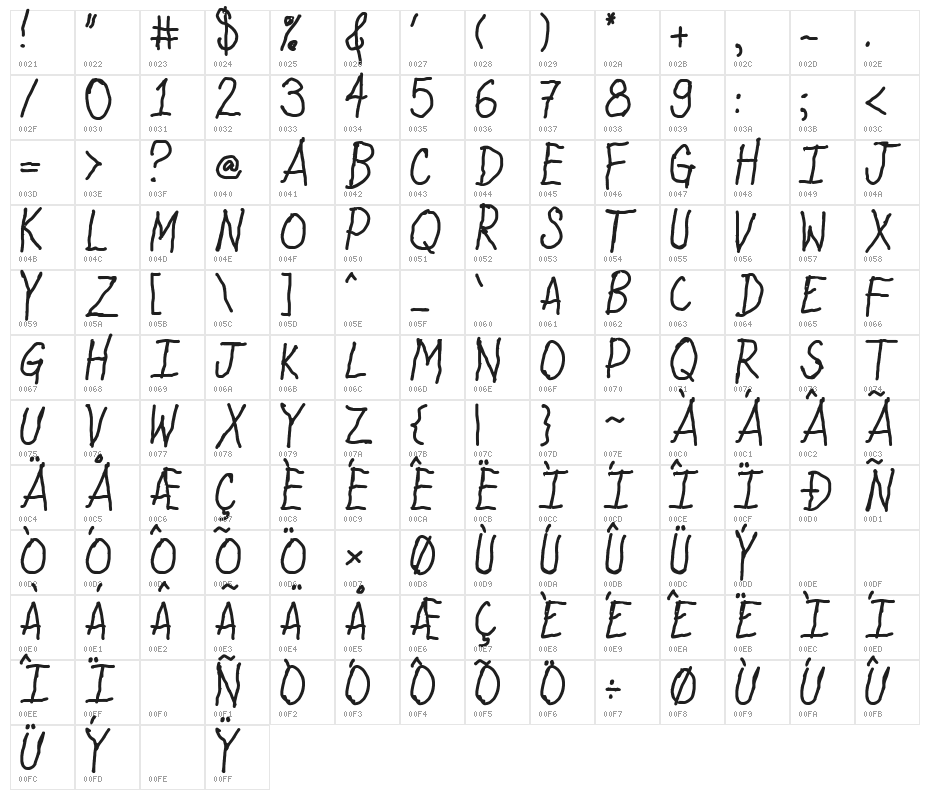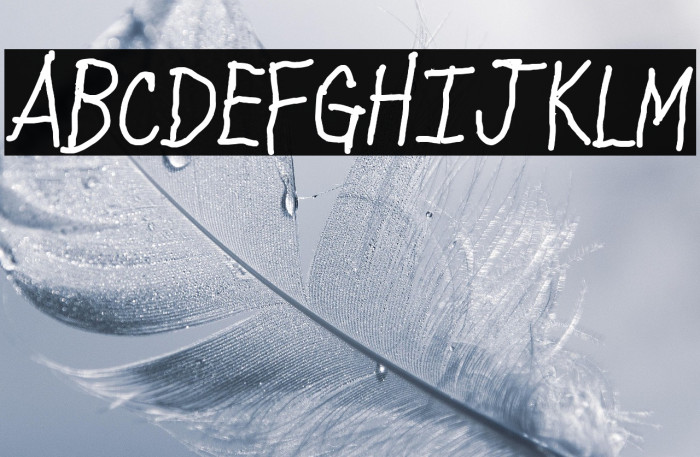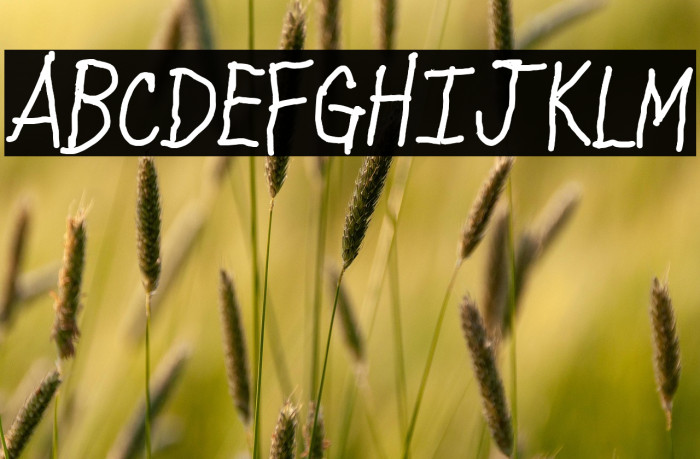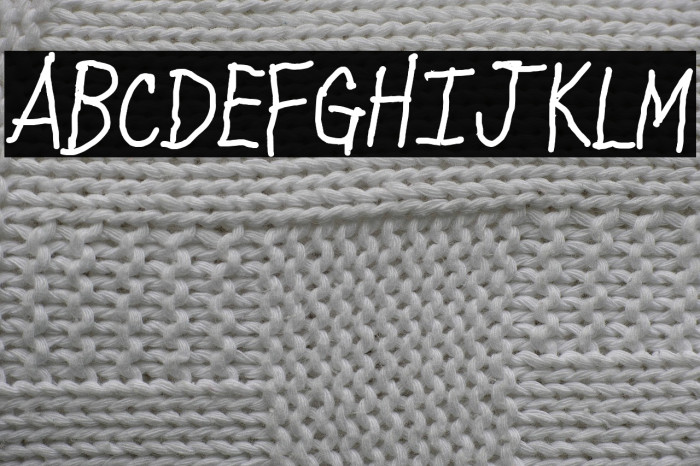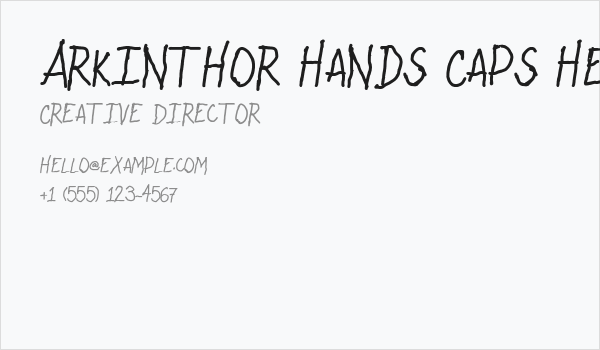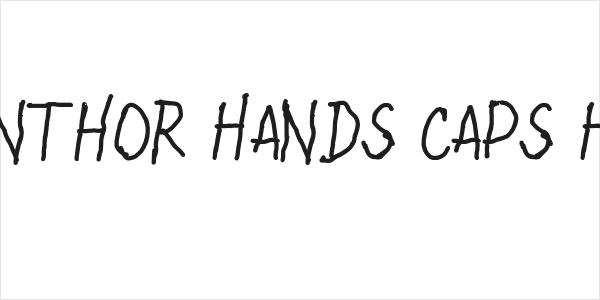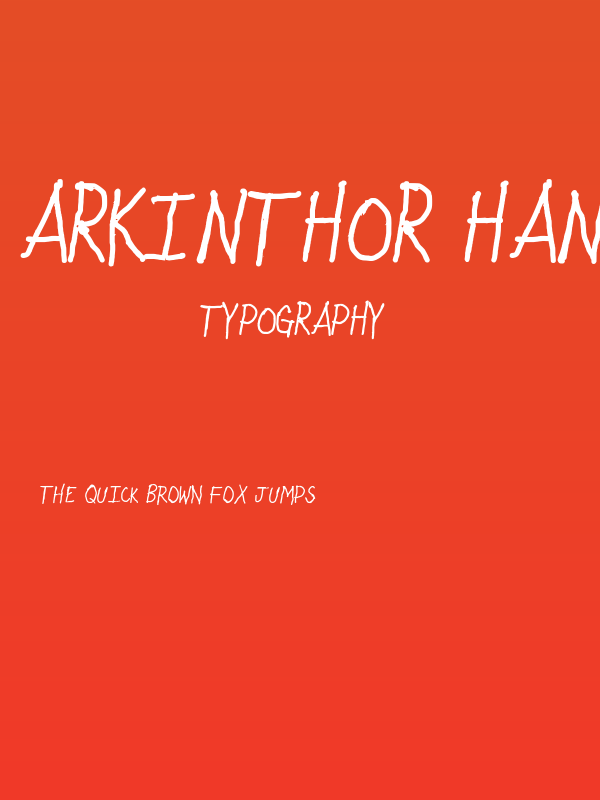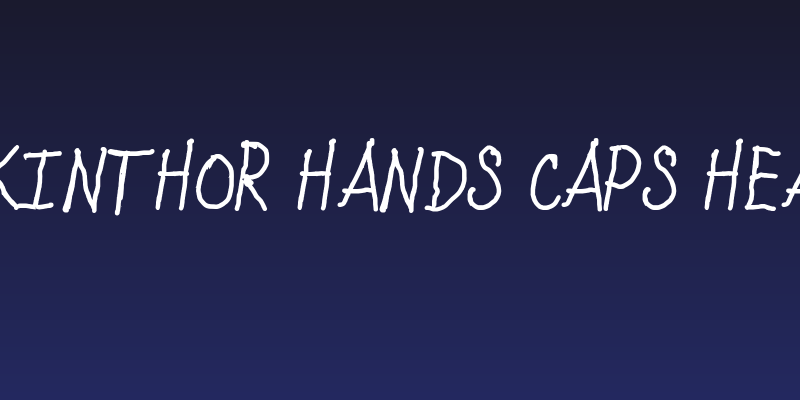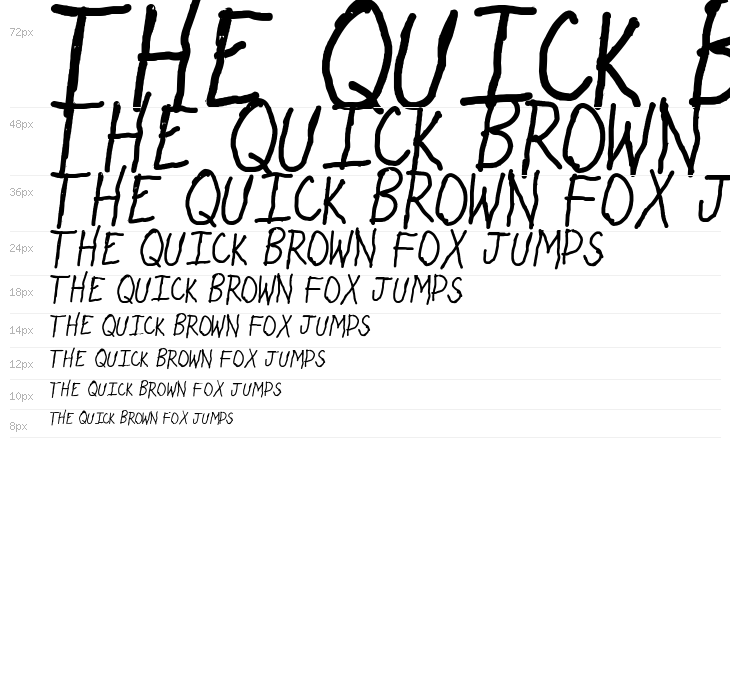
Arkinthor Hands Caps Heavy Font
Arkinthor Hands Caps Heavy Description
A bold, hand-drawn uppercase font with irregular, organic strokes that mimic marker or brush handwriting. The characters are tall and slightly condensed, with playful, uneven lines and a casual, expressive appearance.
| Overall Style | Decorative, Playful, Handwritten |
| Use Case | Headlines, Posters, Logos, Informal Text |
| Proposed Projects | ChildrenΓ’β¬β’s books, posters, comics, informal branding, creative headlines, event flyers. |